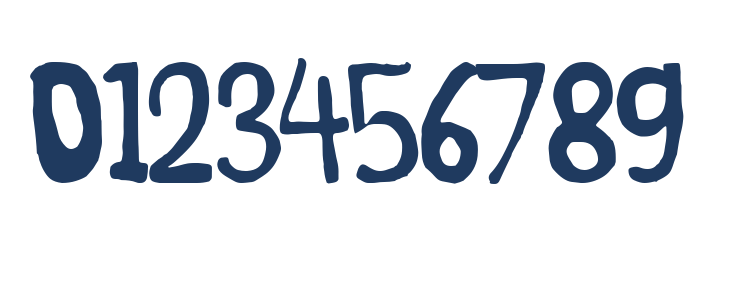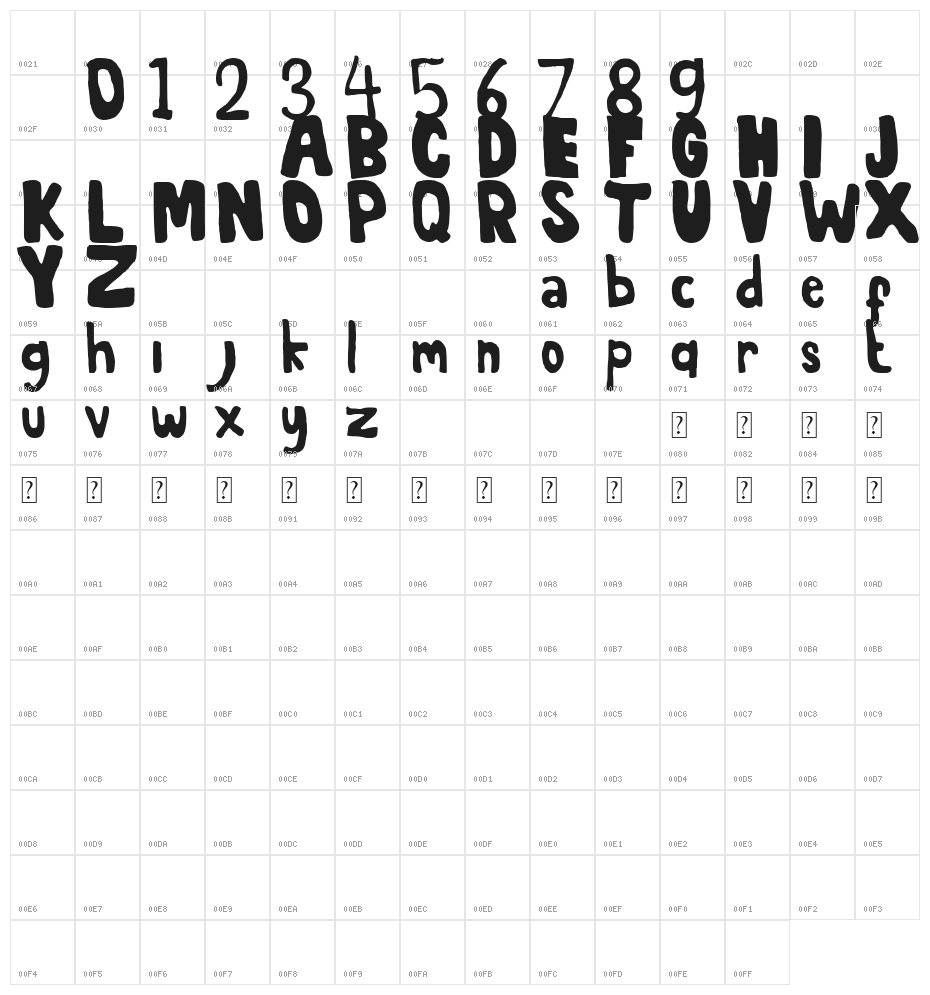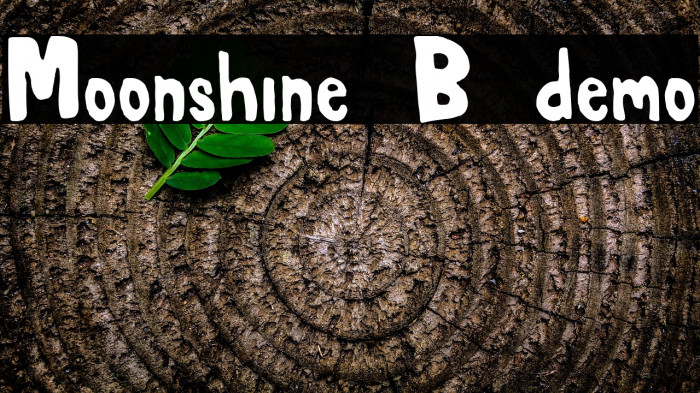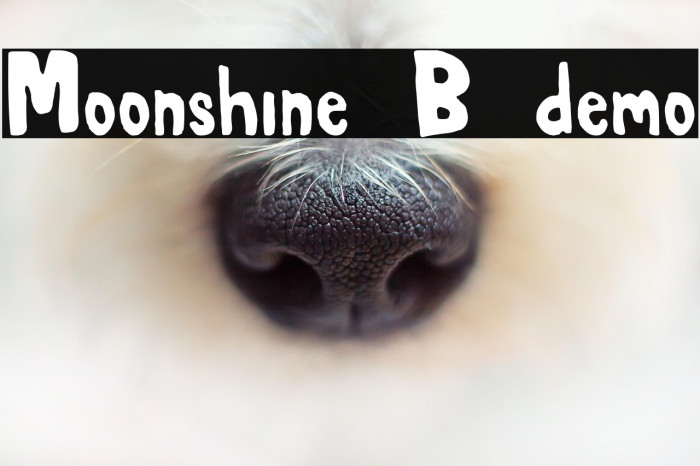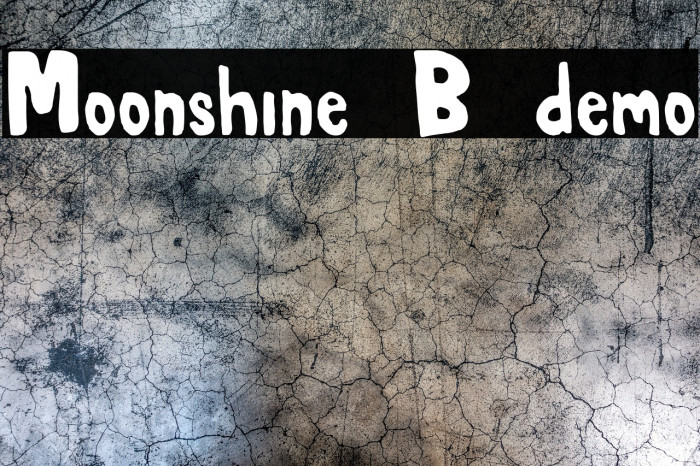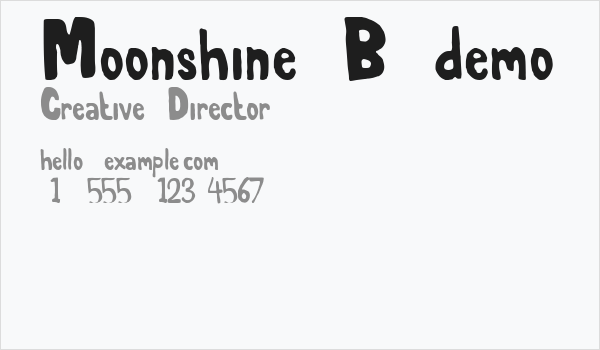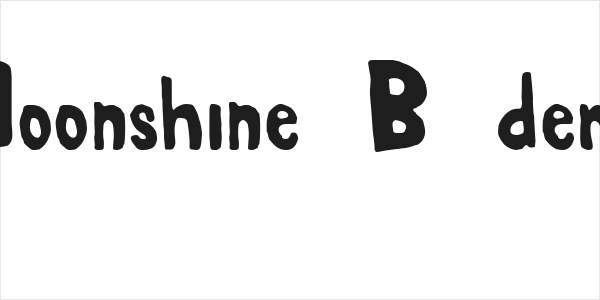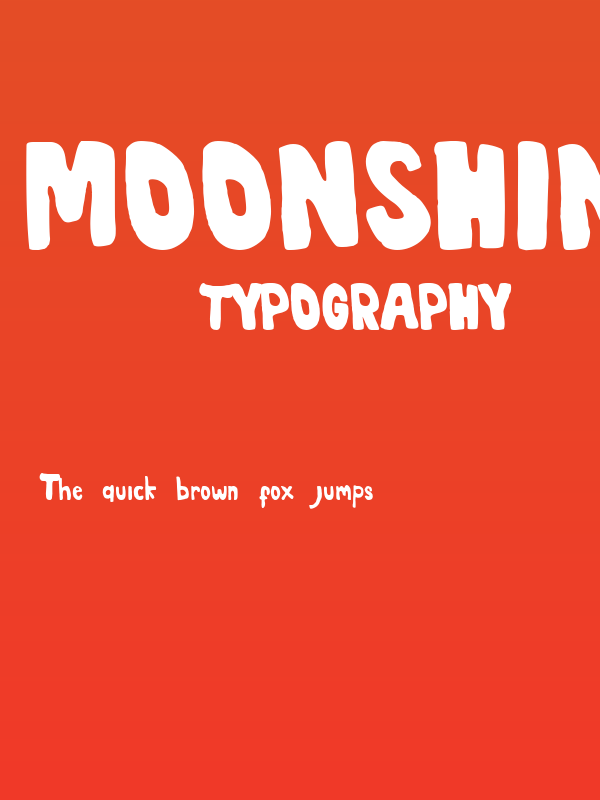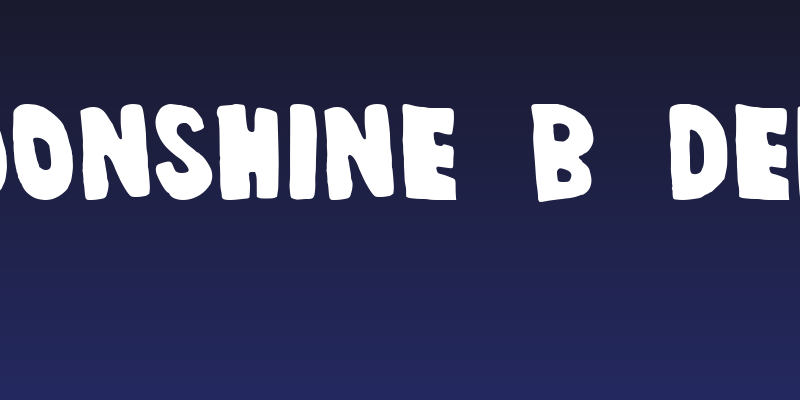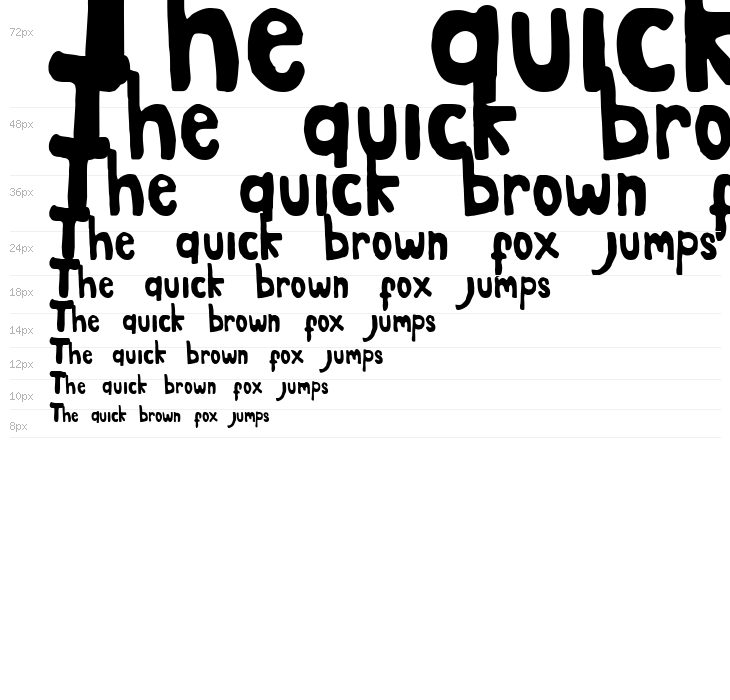
Moonshine B demo Font
Moonshine B demo Description
This font features a bold, playful style with a hand-drawn appearance. The characters are thick and rounded, giving them a friendly and approachable feel. The uppercase and lowercase letters maintain a consistent style, with slight variations that add to the hand-crafted look. The numbers and special characters follow the same aesthetic, ensuring a cohesive design. The overall appearance is informal and whimsical, making it suitable for creative and fun projects.
| Proposed Projects | Ideal for children's books, playful branding, posters, and creative invitations. |